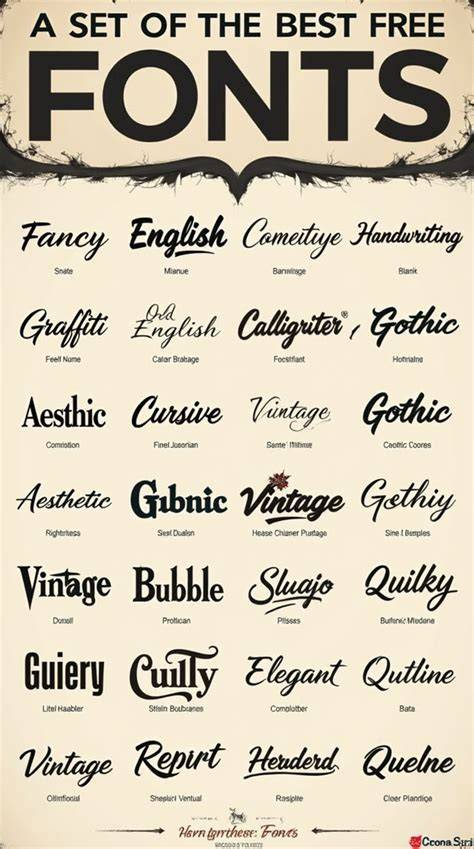
Explore The World Of Free Font Styles In 2023
What Types of Fonts Are Available?
One of the great things about free fonts is that there is something for everyone. From classic serif and sans-serif fonts to bold display fonts and script fonts, there is a font to match every project. Whether you’re creating a logo, designing a website, or writing a book, you can find the perfect font to match your project.
How to Choose the Right Free Font
Choosing the right free font can be a daunting task. With so many fonts to choose from, it’s important to narrow down your search. Start by considering the purpose of your project. Ask yourself what kind of message you want to convey, and then look for fonts that match that message. For example, if you’re writing a book about history, look for a classic serif font. If you’re designing a website for a fitness company, look for a modern sans-serif font.
Tips for Using Free Fonts
In conclusion, free fonts are a great way to add some personality to your project. With so many fonts to choose from, you’re sure to find one that matches your message. Just be sure to check the reviews and the copyright laws before downloading. With the help of free fonts, you can take your project to the next level.